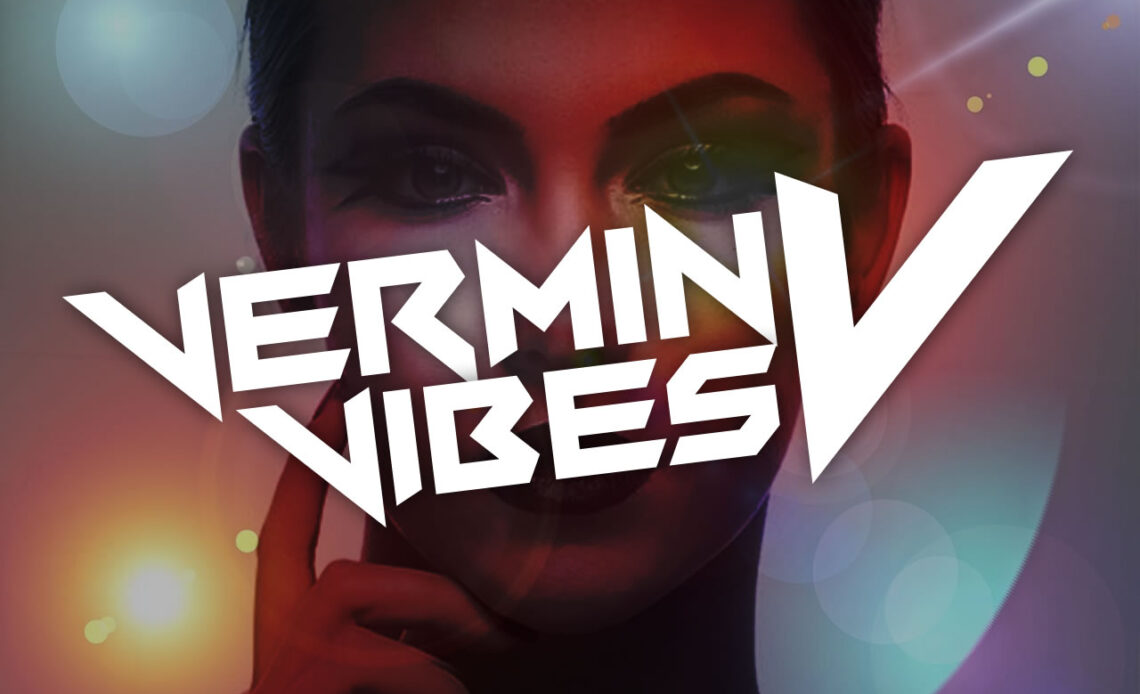
Welcome to the realm of digital artistry, where creativity meets innovation! Presenting Vermin Vibes V, an exceptional display font designed to captivate your audience and leave a lasting impression.
Step into a world of sleek lines, edgy angles, and captivating curves. Vermin Vibes V is the epitome of modern typography, perfectly suited for creating logos, posters, branding materials, and more. Its clean and sharp aesthetic exudes professionalism, while its underlying energy adds a touch of intrigue and excitement.
With Vermin Vibes V, technology and music enthusiasts can unleash their imaginations. Its meticulously crafted characters dance across the screen, forming words that resonate with power and purpose. Whether you're designing a cutting-edge website, producing an electrifying album cover, or creating eye-catching social media graphics, this font has got you covered.
This display font is a masterpiece of versatility. Its adaptability shines through in its ability to transform ordinary text into extraordinary statements. Whether you're creating headlines, subheadings, or body copy, Vermin Vibes V effortlessly elevates your content, making it impossible to ignore.
Join the ranks of creative visionaries who have embraced Vermin Vibes V as their font of choice. Experience the thrill of crafting designs that resonate with your audience, leaving them inspired and engaged. With its ability to captivate and persuade, this font is your secret weapon to achieve digital dominance.